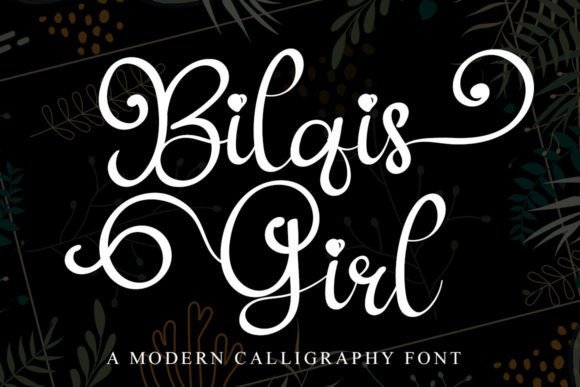
The Perfect Touch: Unlocking the Beauty of Bilqis Girl Font
As a designer, there’s nothing quite like the thrill of discovering a new font that perfectly captures the essence of your vision. You’re browsing through a vast library of fonts, scrolling through endless options, when suddenly, you stumble upon it – the one that makes your design pop. For many creatives, this moment is a game-changer. It’s the spark that ignites a new wave of inspiration, propelling their project to new heights.
Enter Bilqis Girl Font – a stunning, handwritten font that embodies the perfect blend of freshness, elegance, and playfulness. This charming font is designed to add a joyful touch to any project, whether it’s a formal business card or an informal social media post. By incorporating Bilqis Girl Font into your design, you can instantly elevate your brand’s aesthetic, making it stand out in a crowded market.
Bilqis Girl Font Key Features
- Font Style: Elegant, Modern Calligraphy Font with a touch of Arabic script influence
- Font Size: Available in 5 different font sizes (24, 36, 48, 60, and 72 points) for versatile use
- Resolution: High-resolution fonts (up to 300 DPI) for clear display on various devices and print materials
- Unique Characteristics: Unique ligatures, swashes, and flourishes that add a touch of elegance and sophistication to text
- Language Support: Supports multiple languages, including Latin, Cyrillic, and Arabic scripts for global use
Bilqis Girl Font Review
Overall, I think the Bilqis Girl font is a great addition to any designer’s toolkit. It has a unique, elegant flair that works particularly well for titles, headings, and other display typography. ✨
- The font’s flowing lines and organic feel create a sense of sophistication and refinement.
- The wide range of weights and styles available make it easy to customize the font to fit your needs.
- The font is highly legible, even at smaller font sizes.
- The font may be a bit too ornate for certain types of content, such as body text or technical writing.
- The font’s complexity can make it difficult to pair with other fonts.
- The font may not be suitable for digital applications, as it can be difficult to read on smaller screens.
- The font may be too cursive for some people’s taste, potentially causing readability issues.
Overall, I think the Bilqis Girl font is a great choice for designers who want to add a touch of elegance and sophistication to their work. Just be sure to use it wisely and consider its limitations.
Bilqis Girl Font Practical Application Guide
The Bilqis Girl font is perfect for creating elegant and feminine designs, making it ideal for invitations, greeting cards, and wedding stationery.
The Bilqis Girl font is ideal for creating custom typography and elegant graphics, making it perfect for branding, logos, and packaging design.
The Bilqis Girl font is perfect for creating professional and elegant presentations, making it ideal for business proposals, reports, and academic papers.
The Bilqis Girl font is ideal for:
Branding and logos
Custom typography and graphics
Professional presentations and reports